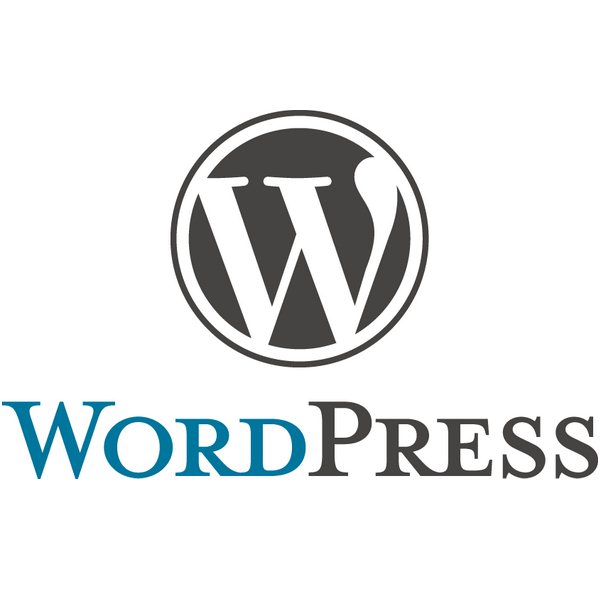
WordPress Font
The WordPress logo features a white "W" on a grey round background, encircled by a grey border. The logotype below includes "Word" in blue and "Press" in grey, using the Mrs Eaves Small Caps font. You can purchase and download the font here.